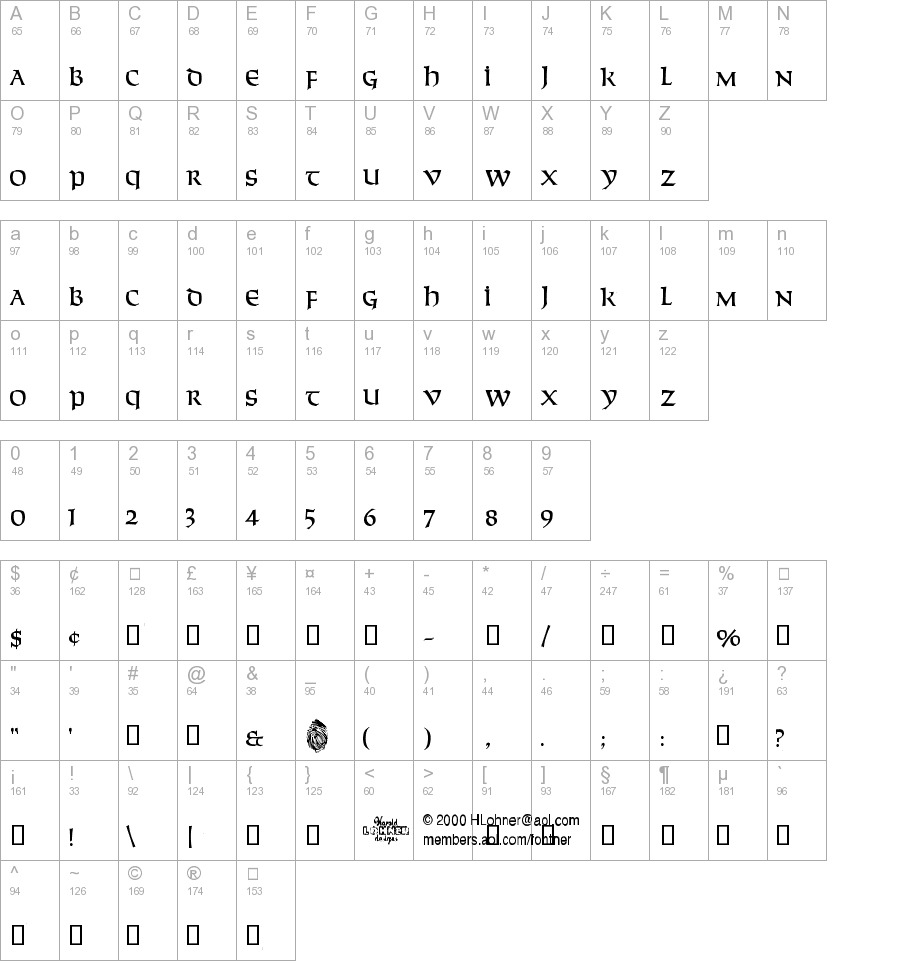
Solemnity Font . Celtic) font, perfect for creative projects. Solemnity font | download solemnity for windows and mac | category: With its intricate details and. Solemnity font is a brilliantly crafted typeface that embodies elegance, sophistication, and a touch of solemnity. Preview and customize it instantly to enhance your designs with a unique and professional. Download the solemnity (category gothic : To learn more about the font and typography of the solemnity font, simply enter the text in the field below and click generate. Thousands of designers (famous or not) use the image font detection system to find a font or similar free fonts from an image.
Celtic) font, perfect for creative projects. To learn more about the font and typography of the solemnity font, simply enter the text in the field below and click generate. With its intricate details and. Solemnity font is a brilliantly crafted typeface that embodies elegance, sophistication, and a touch of solemnity. Preview and customize it instantly to enhance your designs with a unique and professional. Download the solemnity (category gothic : Thousands of designers (famous or not) use the image font detection system to find a font or similar free fonts from an image. Solemnity font | download solemnity for windows and mac | category: